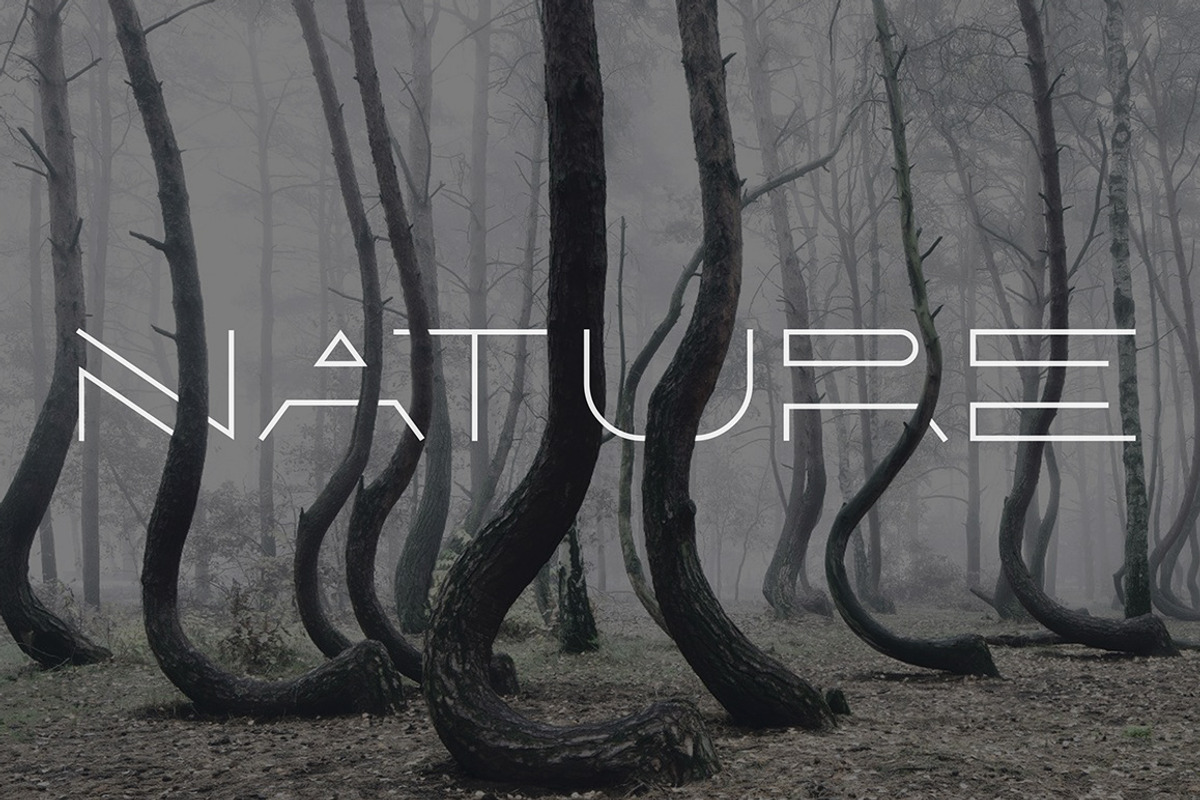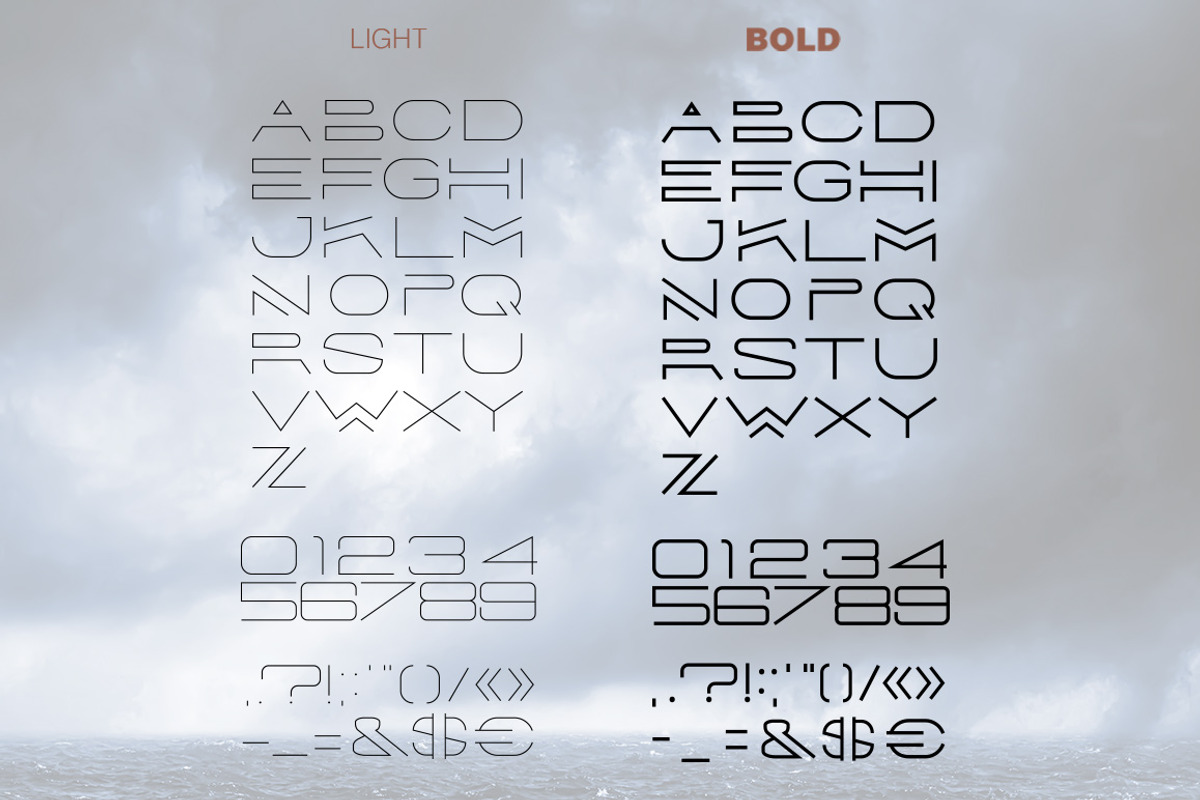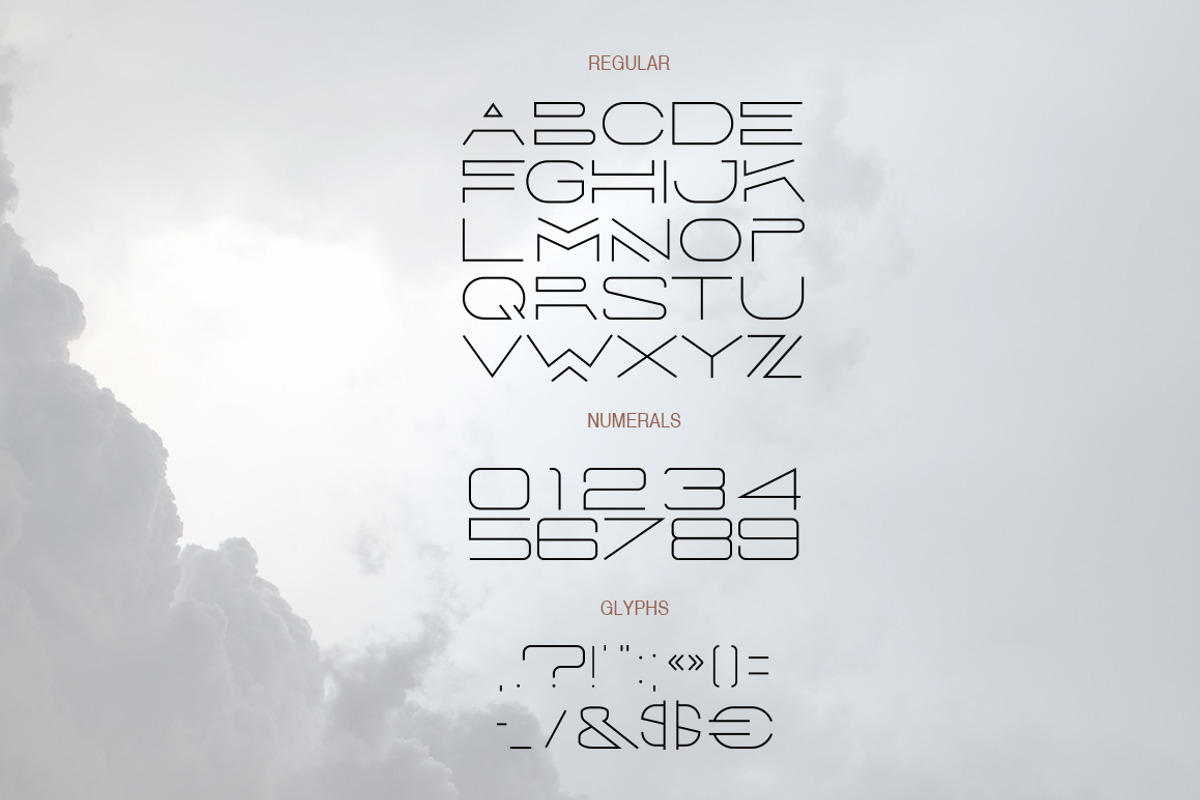
Forest Line Extended Linear Font
Forest Line Extended Linear Font by Sentavio is a font selected for branding, posters, packaging, typography.
Why Forest Line Extended Linear Font is worth a look
Forest Line Extended Linear Font by Sentavio fits naturally into Branding, posters, packaging, typography.